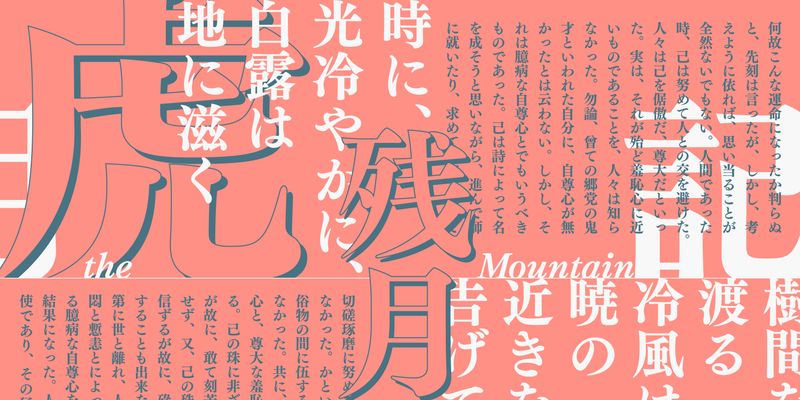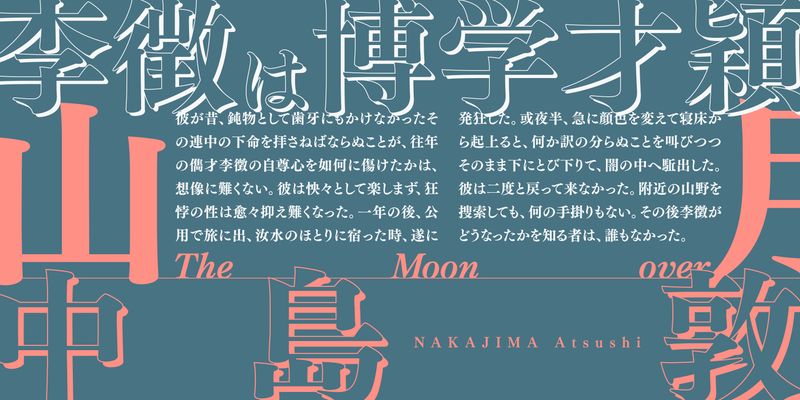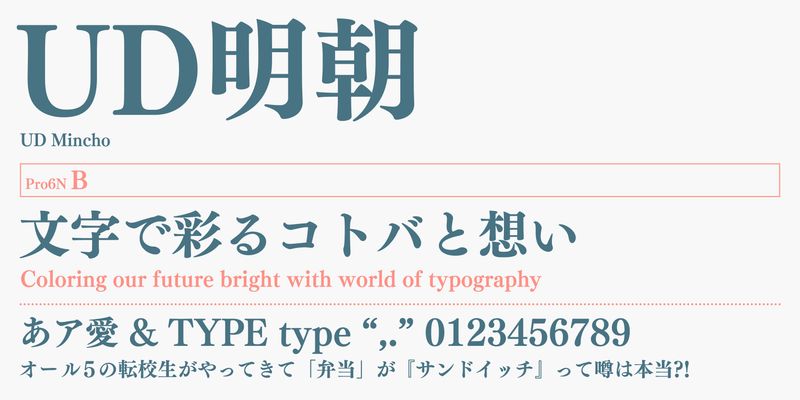
Based on the design of Tsukushi Mincho, a highly acclaimed body text typeface, this typeface has heavier horizontal strokes and larger Latin and number glyphs. It is most effective for long texts that require good readability.